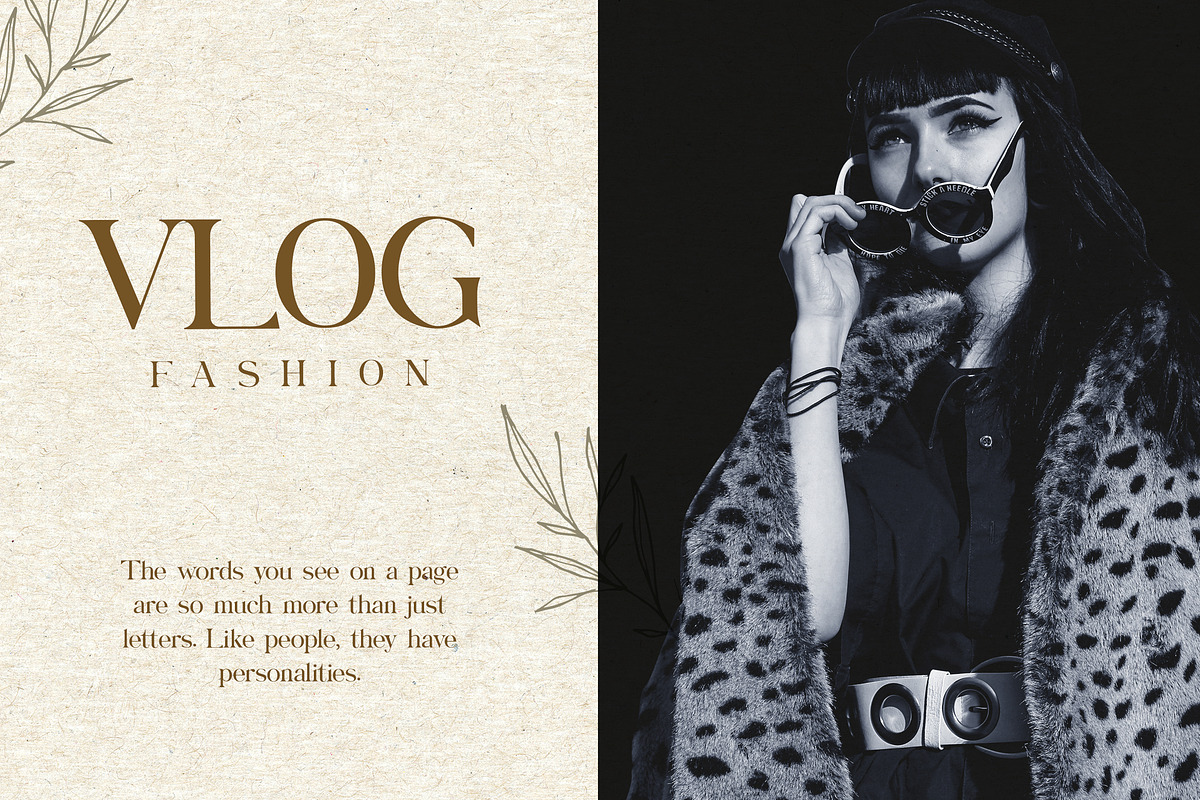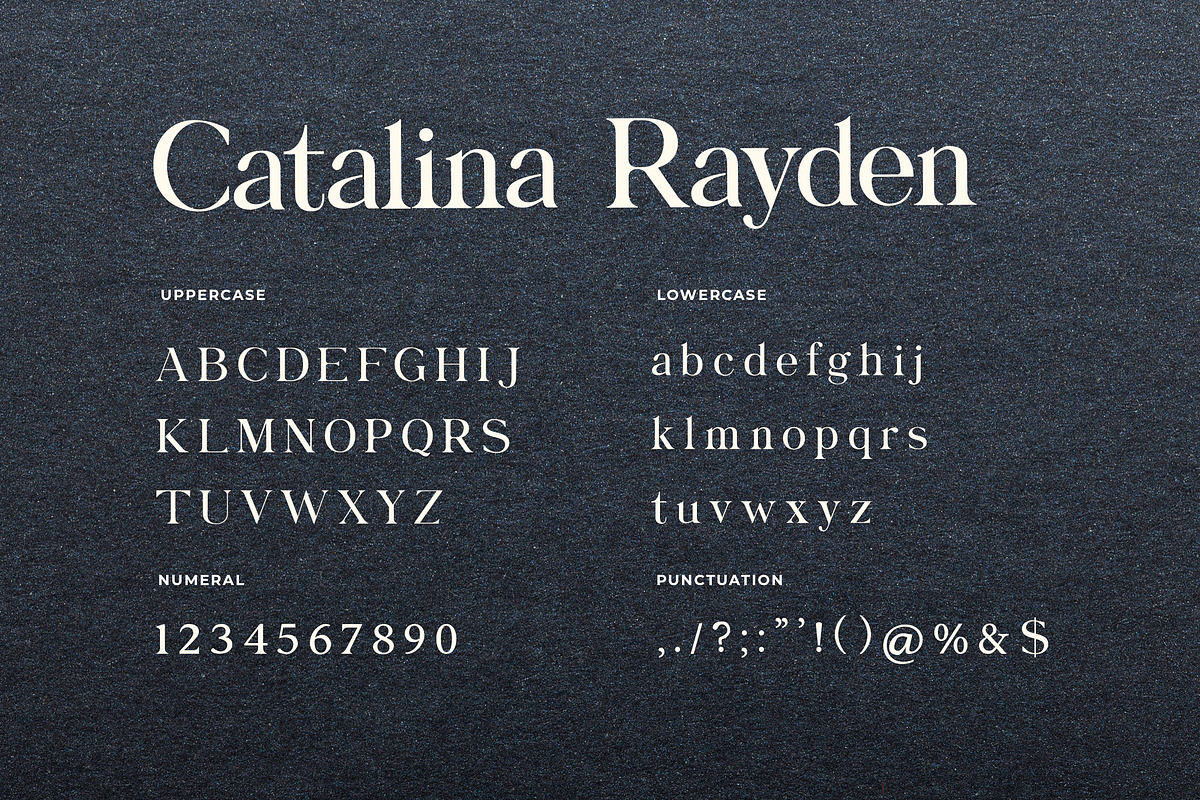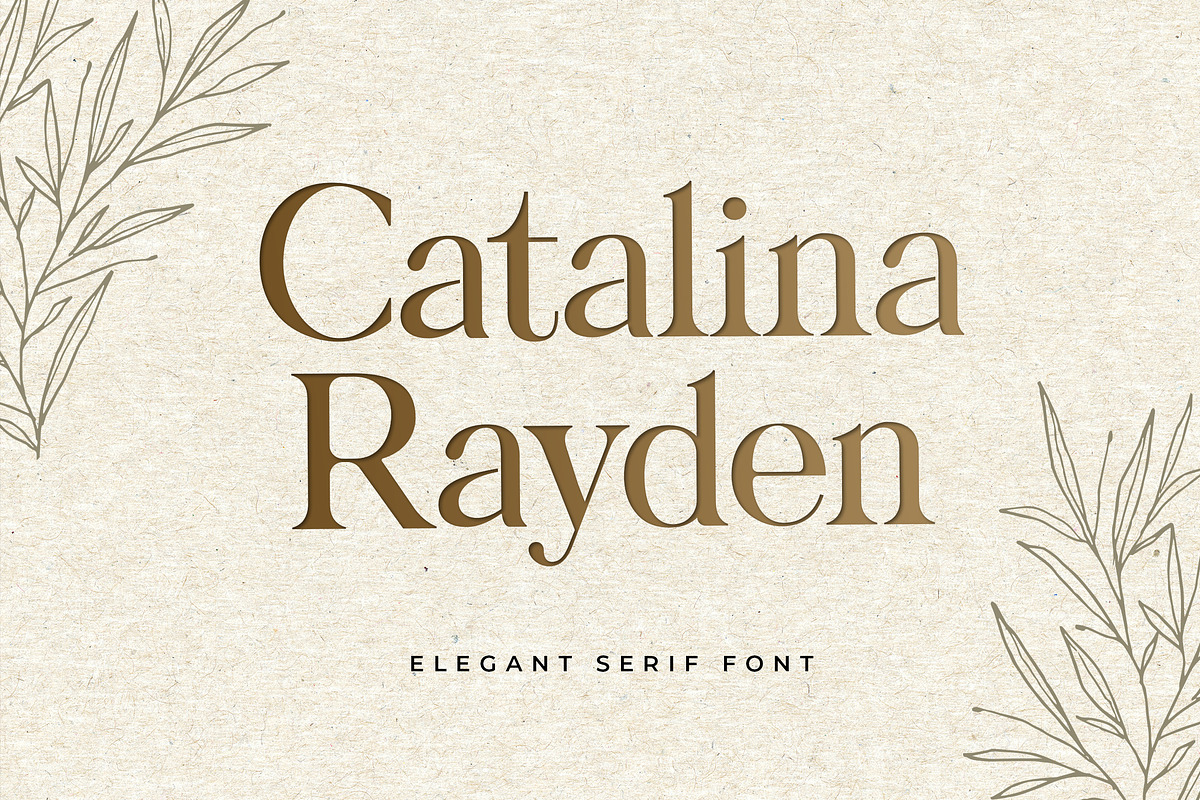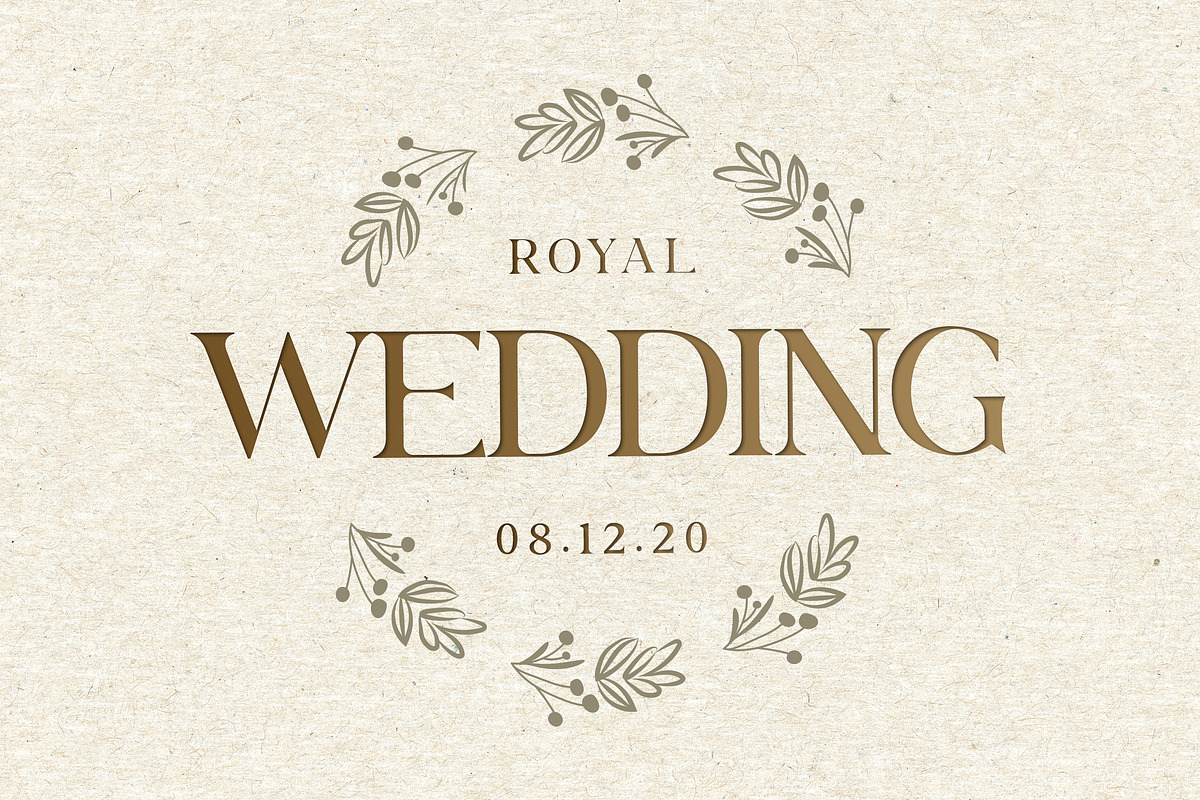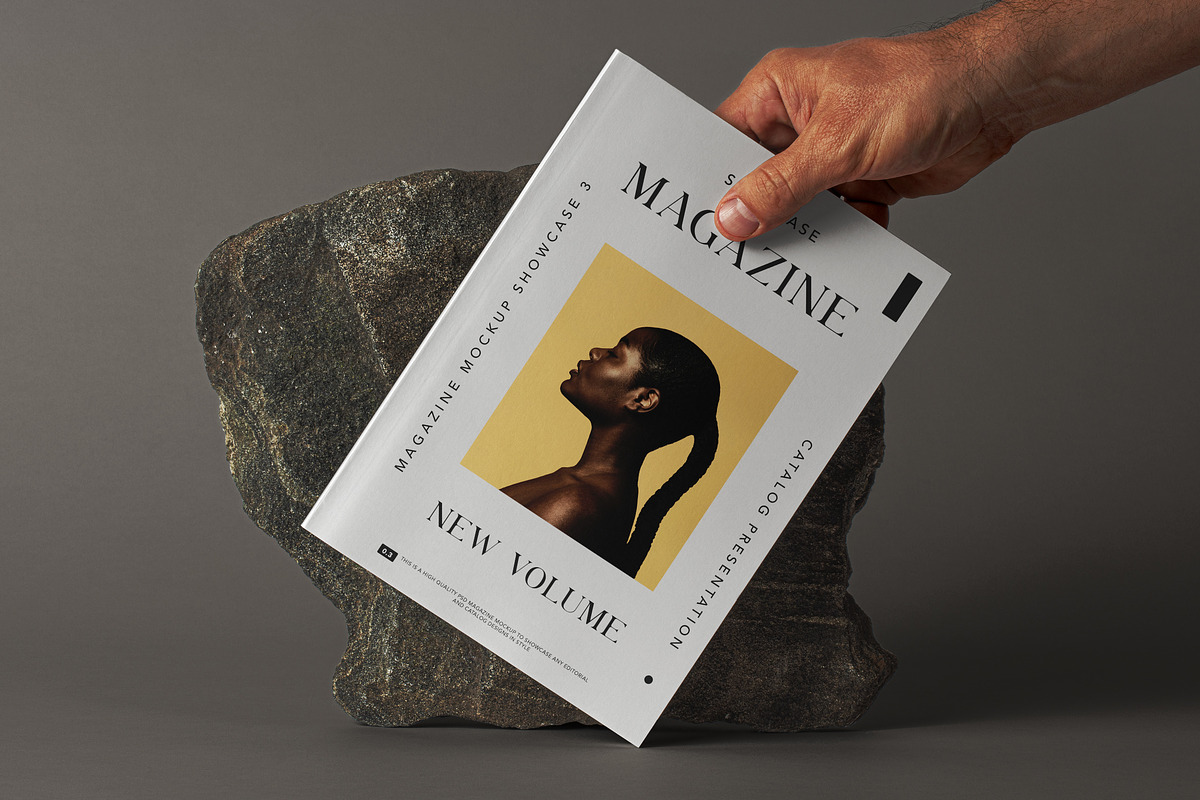
Catalina Rayden Serif Display Font
Introducing of our new product the name is Catalina Rayden Serif Display Font with its unique curves and cut-ins making it one of the most memorable caps fonts on the market .This font is perfect for fashion related branding or editorial design and displays both masculine and feminine qualities. Also you use this font on Logo & Label Design, Apparel Design, Music, Advertising, T-shirts, Brochures And more!